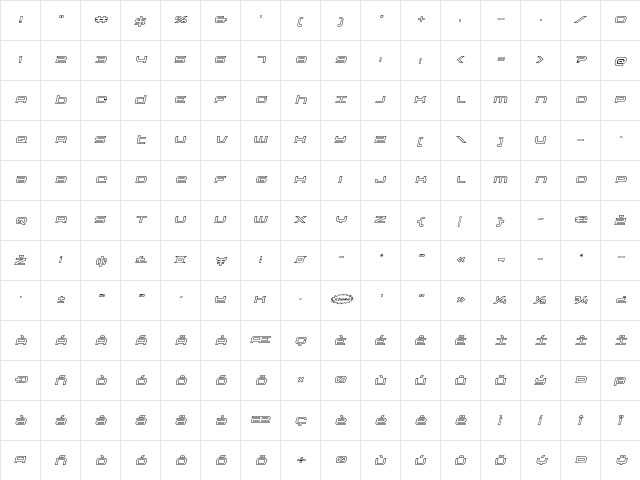
Nextwave Outline Italic Italic
Design Context for Nextwave Outline Italic Typeface
Nextwave Outline Italic brings ornamental detail and strong personality to headlines and identities, where visual impact matters more than quiet functionality. The slanted form adds forward momentum and visual energy.
Font Pairing: Pair with a clean neutral sans-serif for body copy to let Nextwave Outline Italic's character lead without overwhelming the composition.
Pro Tip: Treat Nextwave Outline Italic as the centrepiece of your typographic hierarchy. One strong heading set in a decorative face can carry an entire layout.